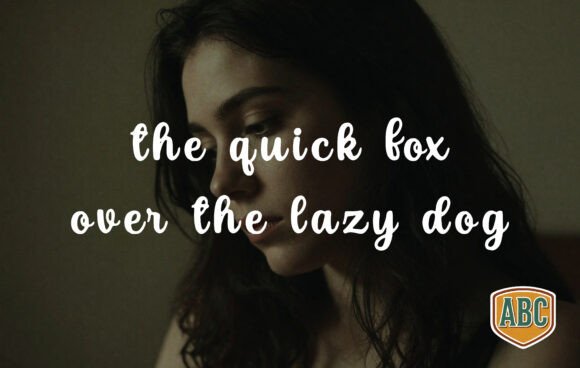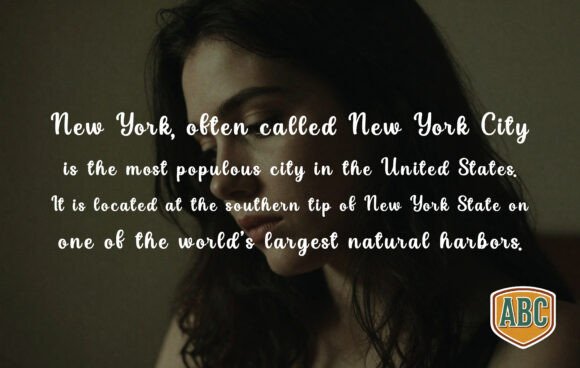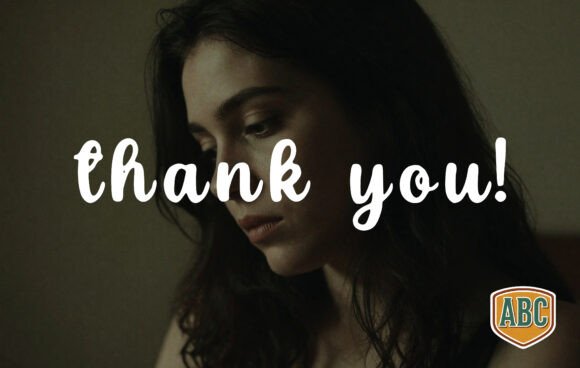
Bringing Vintage Playfulness to Life with Dark Olive Font
In the world of typography, few fonts manage to strike the perfect balance between classic charm and modern energy. Dark Olive, a bold script font, is one such typeface that has captured the hearts of designers and crafters alike. With its thick, rounded strokes and casual, rhythmic flow, Dark Olive mimics the warm feel of a hand-lettered sign, bringing a touch of vintage playfulness to any creative project.
The Characteristics of Dark Olive
Dark Olive is defined by its friendly personality and organic connections, making it a standout choice for high-impact branding and personal storytelling. The font’s heavyweight provides excellent visibility, while its soft curves ensure that your message remains welcoming and approachable. This unique blend of characteristics makes Dark Olive an ideal choice for designers looking to add a touch of authenticity to their work.
One of the key features that sets Dark Olive apart is its thick, rounded strokes. These strokes give the font a sturdy, dependable feel that is perfect for headlines, titles, and other high-impact applications. At the same time, the rounded edges add a touch of softness and approachability, making Dark Olive a versatile font that can be used in a wide range of contexts.
Using Dark Olive in Your Designs
Whether you’re working on a moody editorial piece or a vibrant product label, Dark Olive adds an authentic, artisanal touch to every layout. The font’s casual, rhythmic flow makes it perfect for creating eye-catching headlines and titles, while its friendly personality ensures that your message comes across as approachable and engaging.
Dark Olive is also an excellent choice for designers looking to create a sense of nostalgia or vintage charm in their work. The font’s classic feel and organic connections evoke a sense of warmth and familiarity, making it perfect for projects that require a touch of personality and character.
So why should designers and crafters choose Dark Olive for their creative projects? Here are just a few benefits of using this versatile font:
- Unique personality: Dark Olive has a friendly, approachable personality that sets it apart from other fonts.
- High-impact visibility: The font’s heavyweight and thick strokes make it perfect for high-impact applications.
- Versatility: Dark Olive can be used in a wide range of contexts, from editorial design to product labeling.
- Vintage charm: The font’s classic feel and organic connections evoke a sense of nostalgia and vintage charm.
Tips for Using Dark Olive Effectively
To get the most out of Dark Olive, here are a few tips for using the font effectively:
- Use it sparingly: Dark Olive is a bold font, so use it sparingly to create maximum impact.
- Pair it with contrasting fonts: Pair Dark Olive with contrasting fonts to create visual interest and hierarchy.
- Experiment with colors: Dark Olive looks great in a range of colors, so experiment to find the perfect shade for your project.
In conclusion, Dark Olive is a bold script font that brings a touch of vintage playfulness to any creative project. With its thick, rounded strokes and casual, rhythmic flow, Dark Olive is perfect for designers and crafters looking to add a touch of authenticity and personality to their work. Whether you’re working on a moody editorial piece or a vibrant product label, Dark Olive is a versatile font that is sure to make a lasting impression.